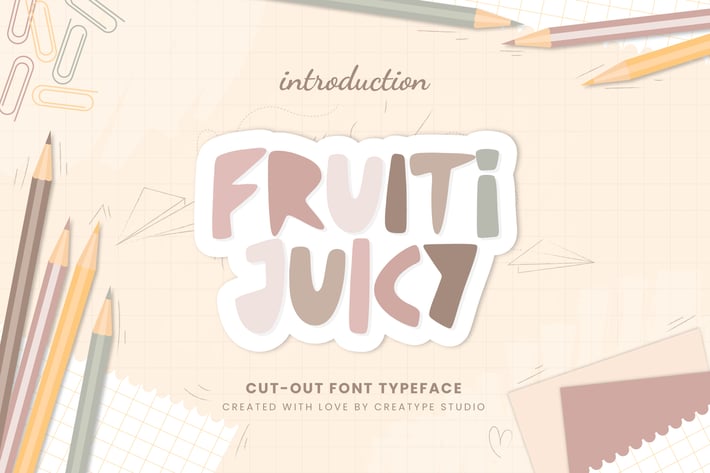
Fruiti Juicy Cut-Out Typeface
Fruiti Juicy is a handwritten cutout typeface. You can use this font for cute, happy, and cheerful projects. This font will make your project look more natural and beautiful.
Fruiti Juicy is perfect for branding projects, logo, wedding designs, social media posts, advertisements, product packaging, product designs, label, photography, watermark, invitation, stationery and any projects that need handwriting taste.
Ton of glyphs
Ligature & Alternate